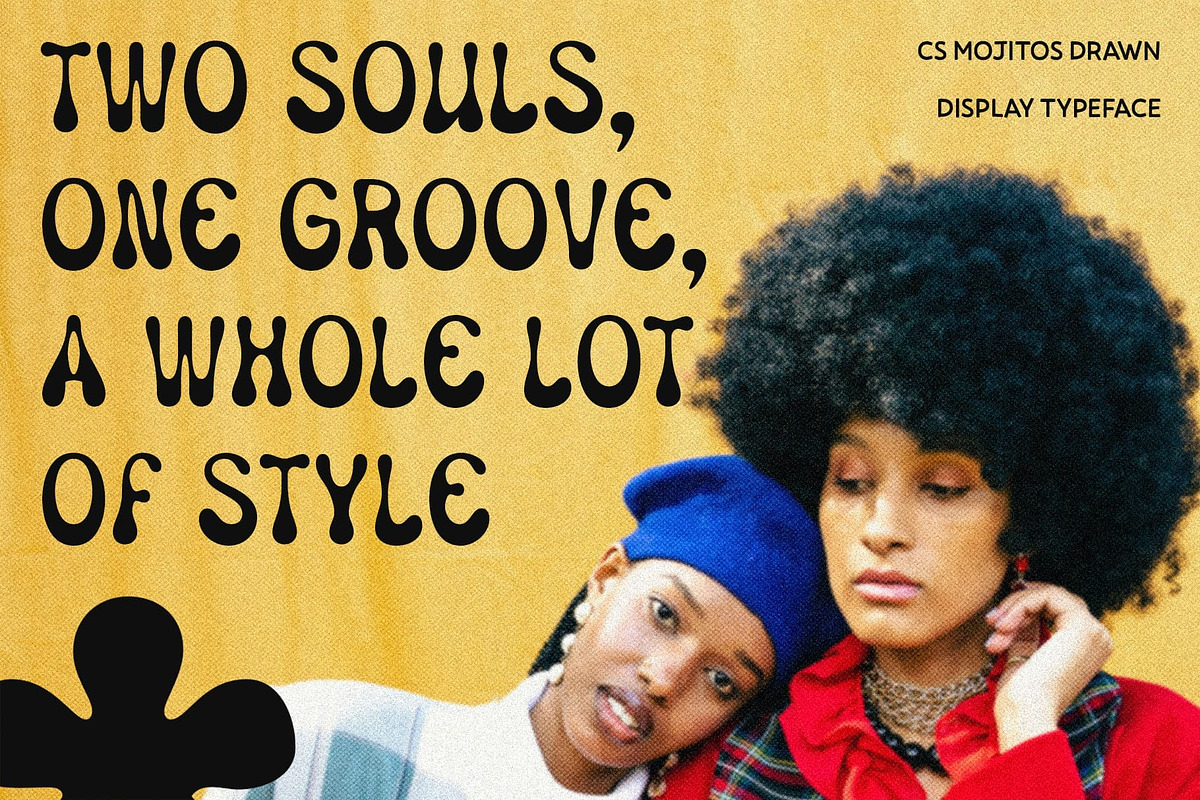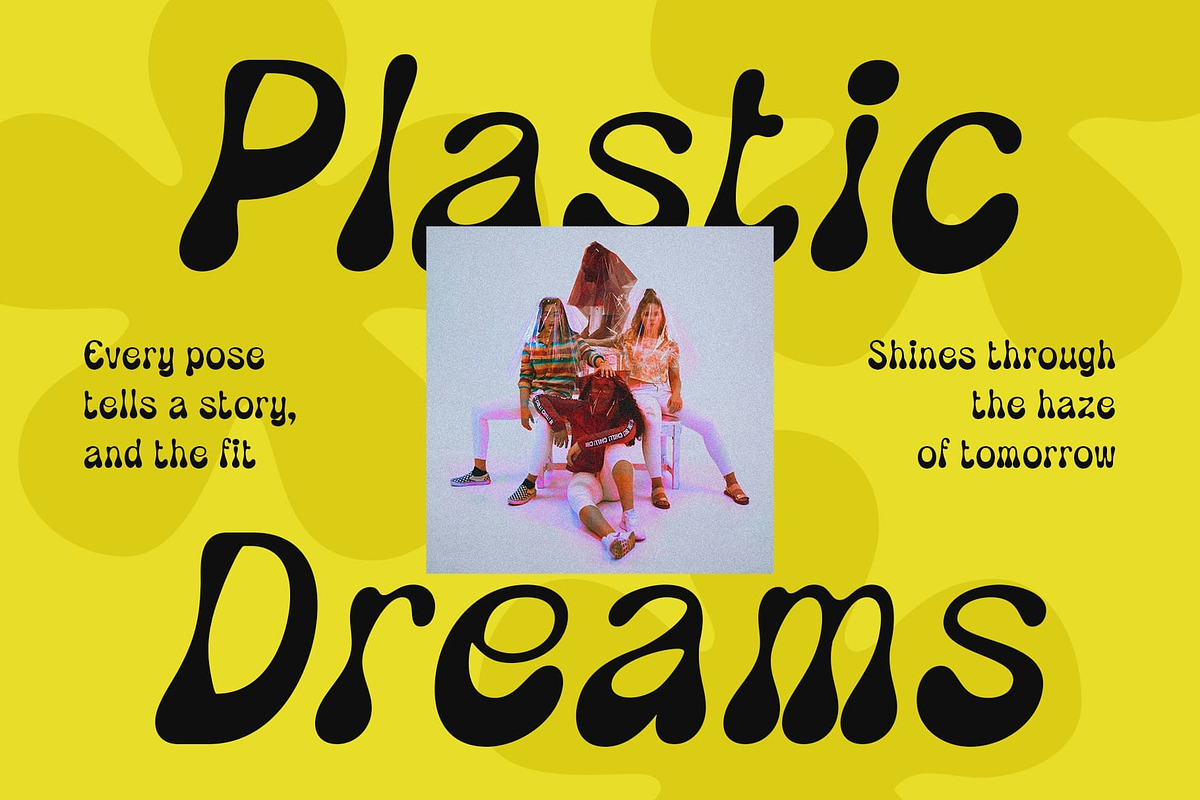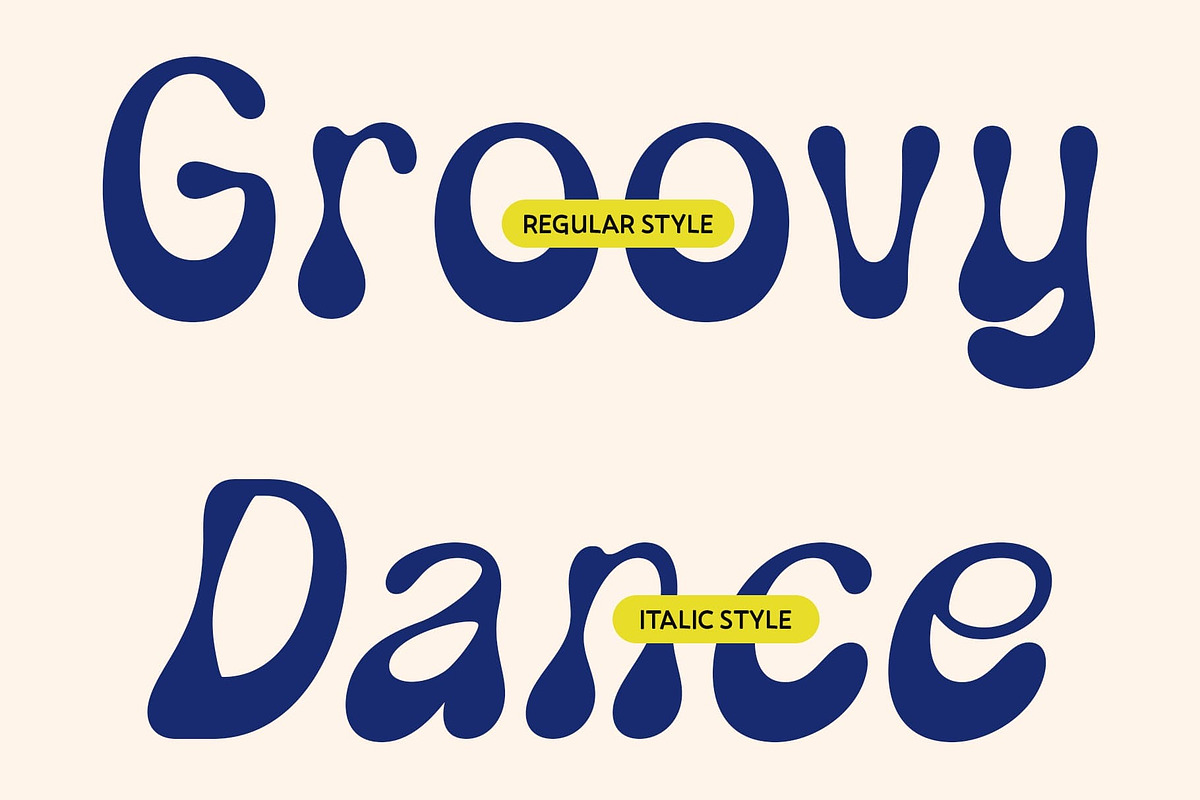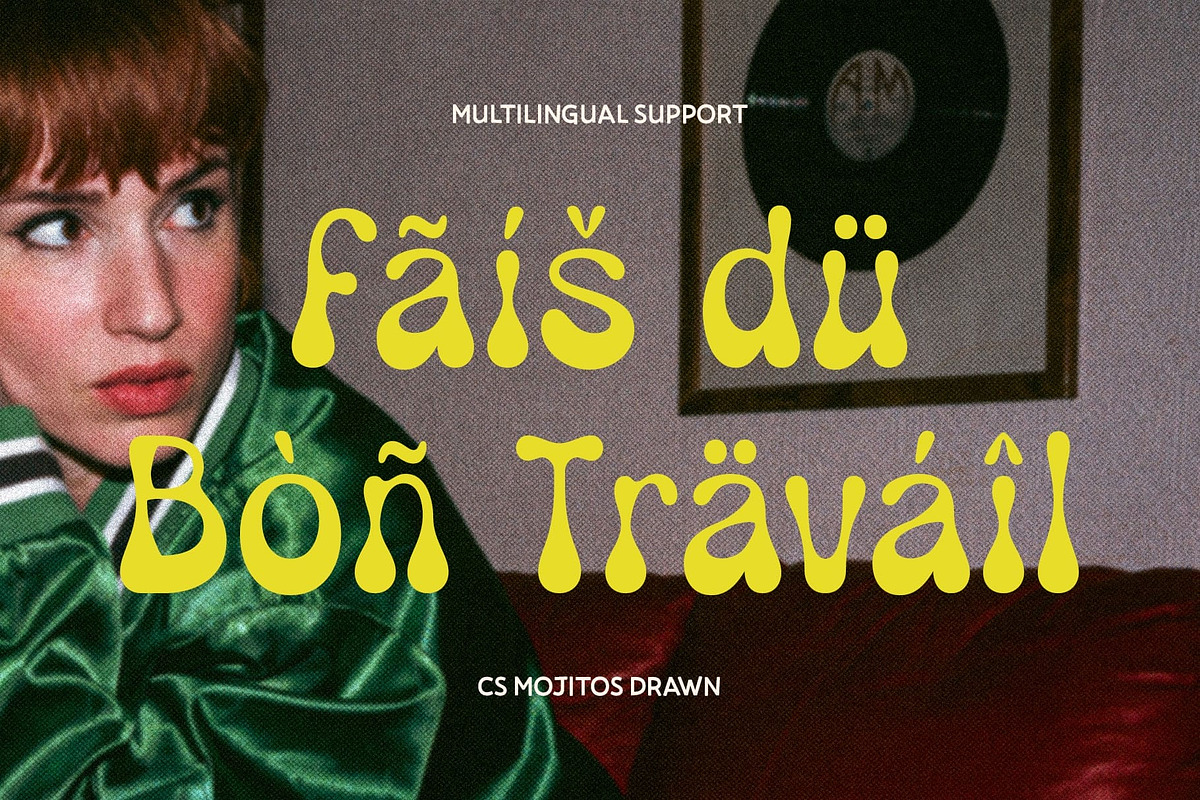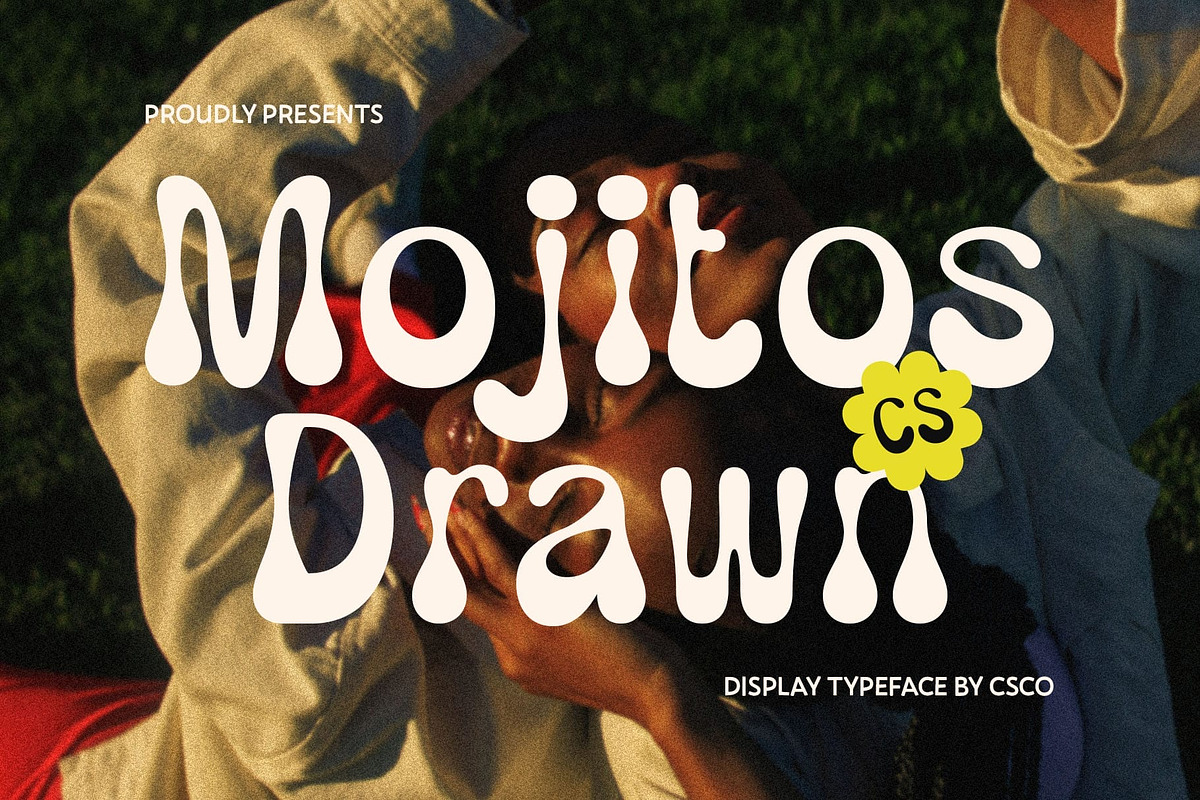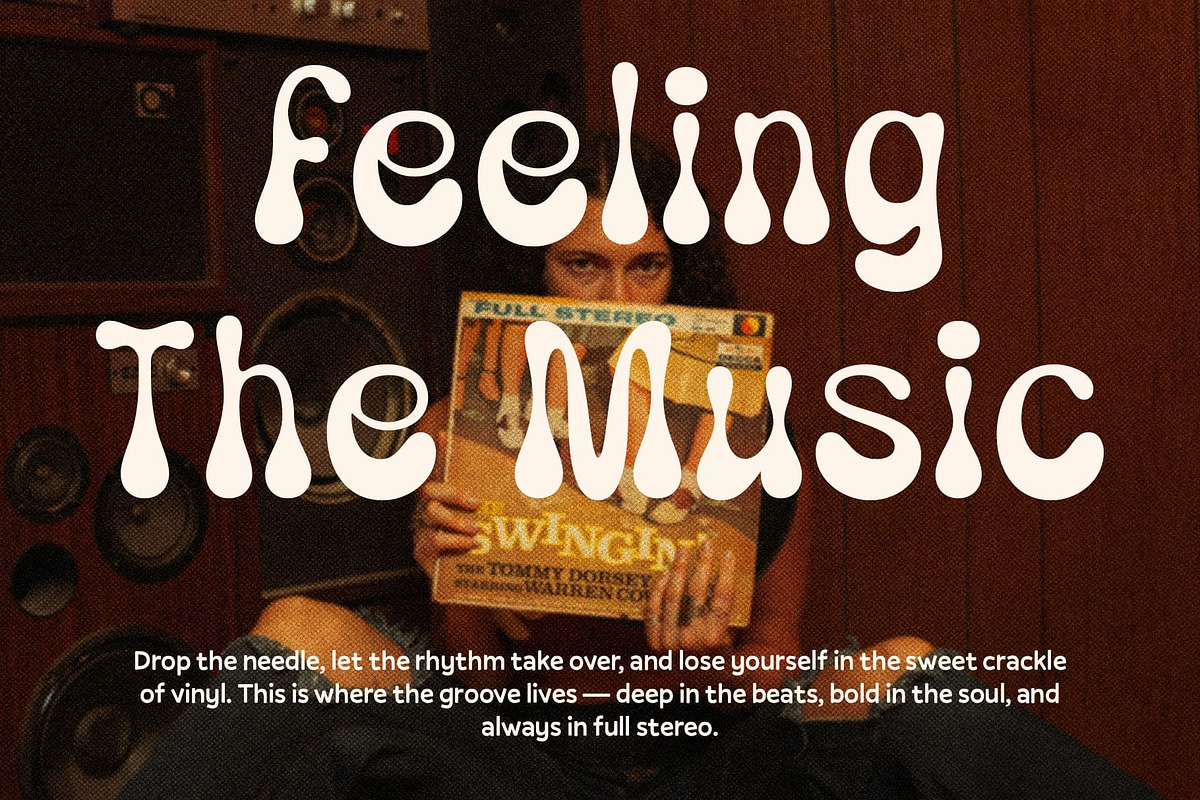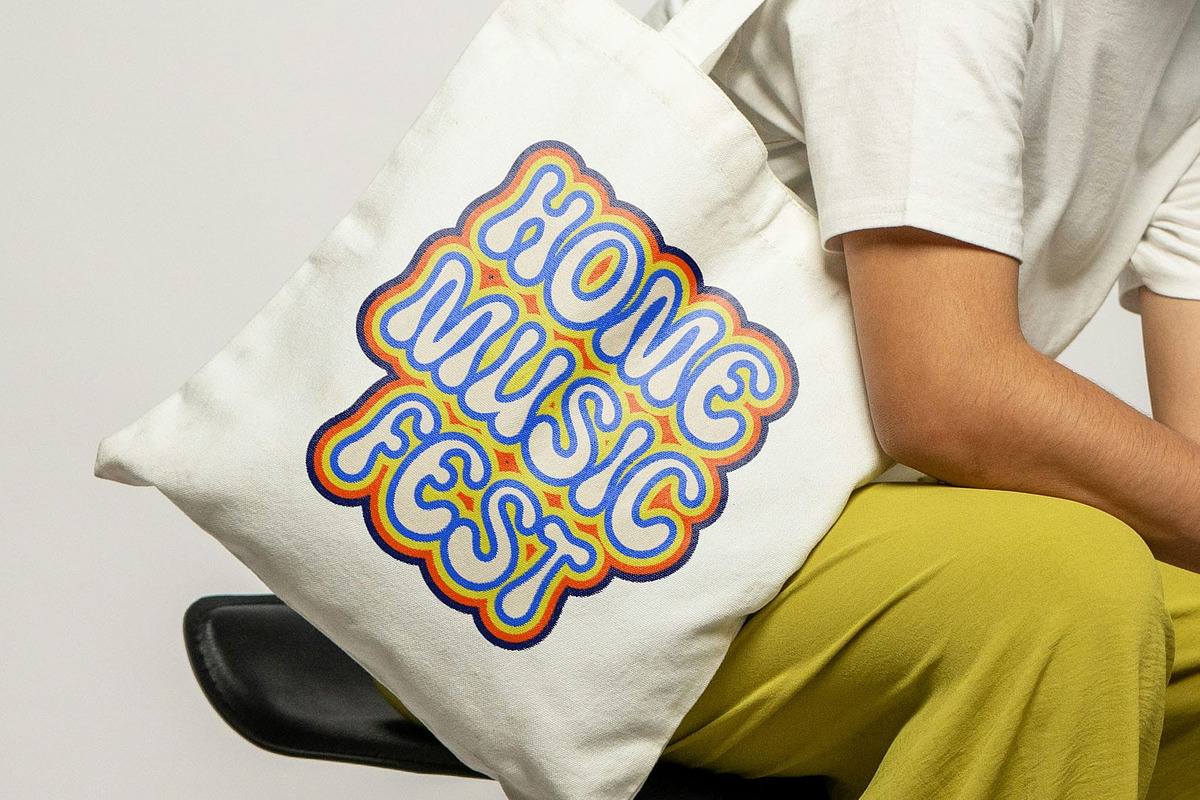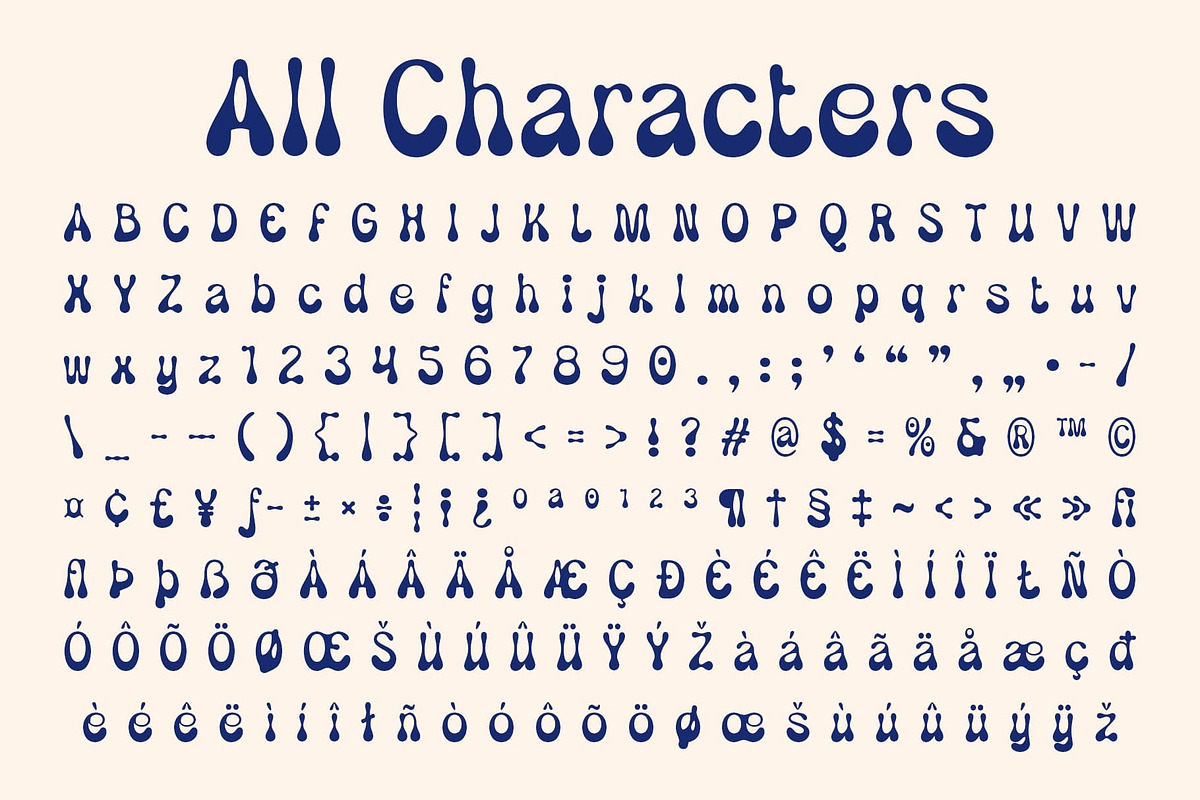
CS Mojitos Drawn
CS Mojitos Drawn – Groovy Retro Funk Typography
Dynamic Curves with Retro Energy CS Mojitos Drawn is a groovy display font featuring freely flowing letterforms with bold curves and lively rhythm. Its funky, retro-inspired shapes radiate cheerfulness and creativity, making text feel vibrant and full of movement.
Hand-Drawn Texture for Artistic Charm Enhanced with a drawn effect, this font carries a handmade quality that feels personal and expressive. The subtle texture adds depth and uniqueness, setting it apart from overly polished typefaces while giving your designs a warm, creative touch.
Playful, Bold, and Nostalgic With its funky style and nostalgic energy, this youthful font captures the joyful spirit of vintage design. Its bold presence and quirky character make it perfect for projects that want to stand out with flair and individuality.
Ideal for Creative Expression Whether used on posters, music covers, branding, or experimental design projects, this expressive and bold font injects a playful retro groove that instantly grabs attention. It’s the perfect font for designers who want to combine nostalgia with modern creativity. From posters and music covers to branding, packaging, or social media designs, this whimsical font is built to grab attention. Its funky strokes and handmade feel make it ideal for projects that want to stand out, spark curiosity, and connect with audiences through a unique and artistic typographic voice.